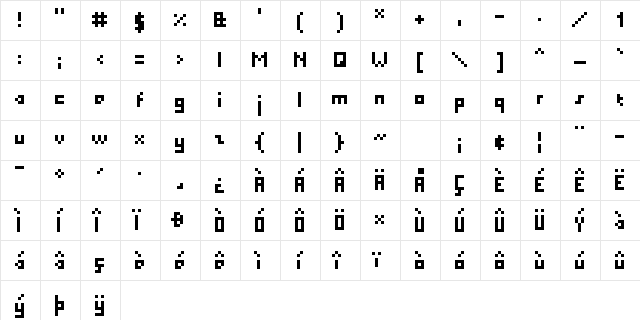
Pixel Millennium Regular
| Designer | Zdenek Gromnica a.k.a. FutureMillennium |
Design Context for Pixel Millennium Typeface
Pixel Millennium celebrates the constraints of early digital type, turning pixel geometry into a distinctive and immediately recognisable style.
Well-suited to indie game interfaces, retro computing aesthetics, and pixel art-adjacent design work.
Pro Tip: Use Pixel Millennium at sizes that align with its pixel grid for the sharpest rendering — scaling to non-integer multiples can introduce unwanted blur.